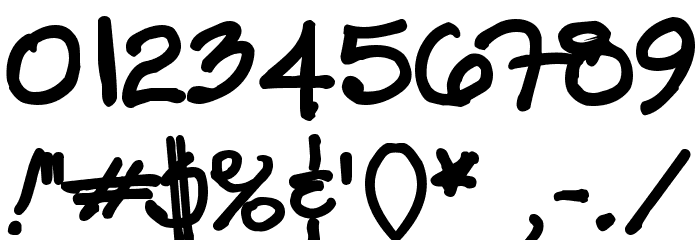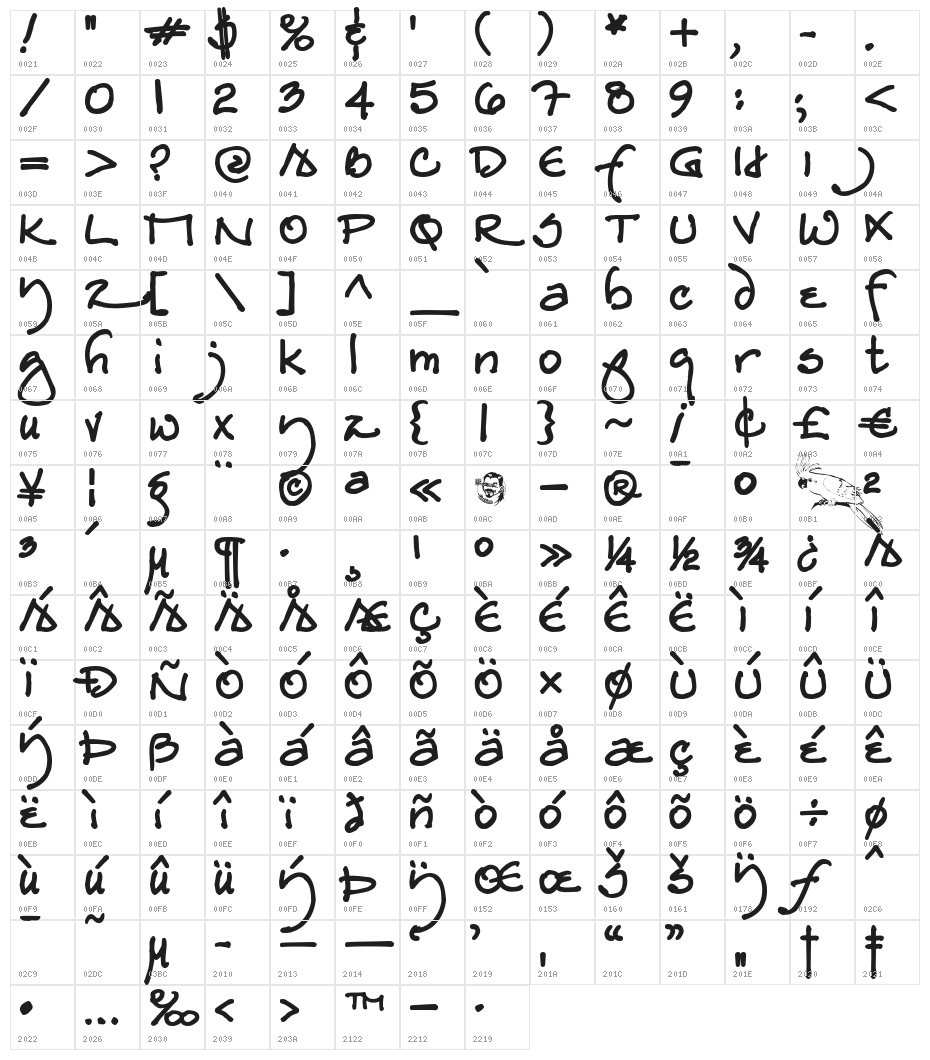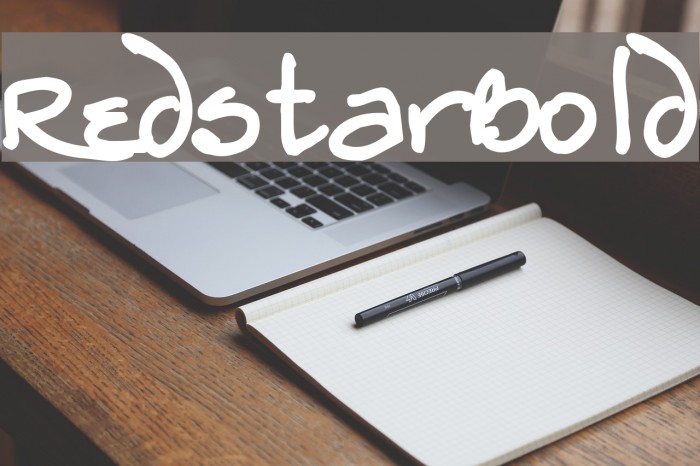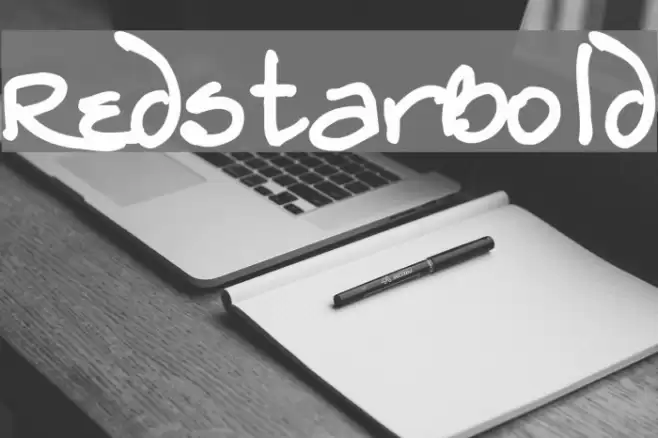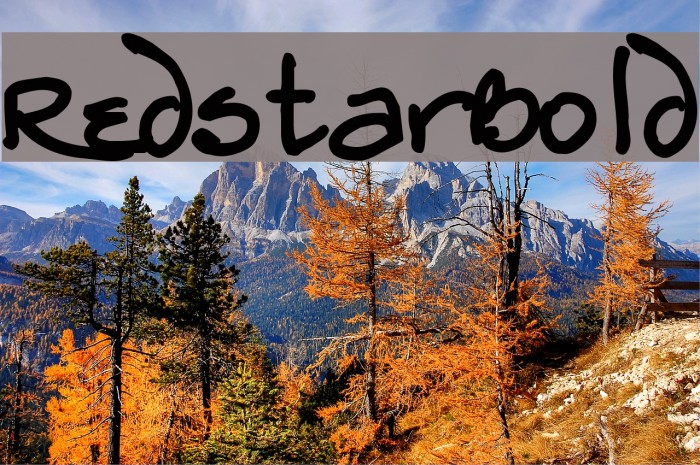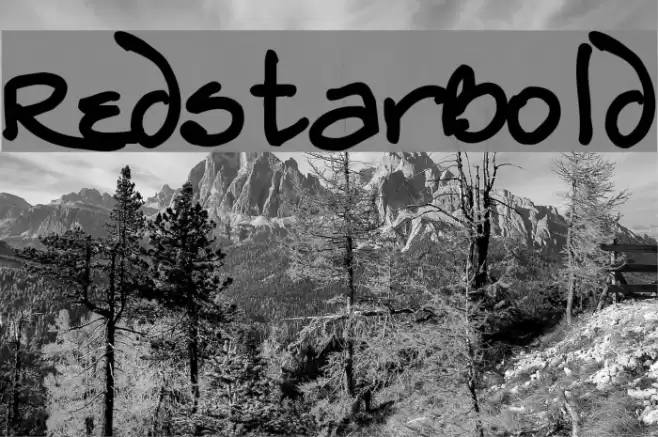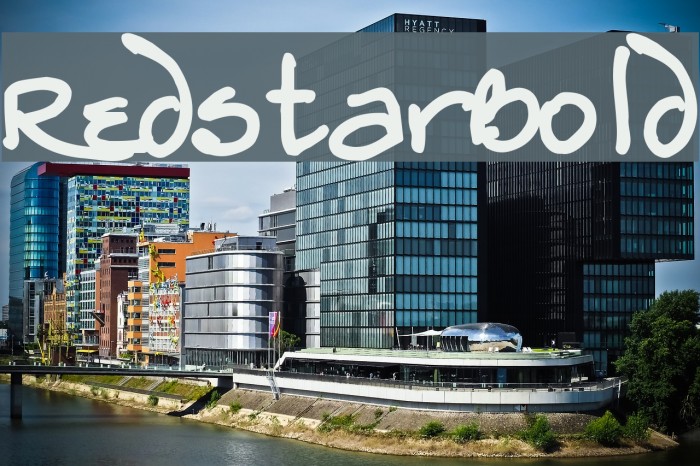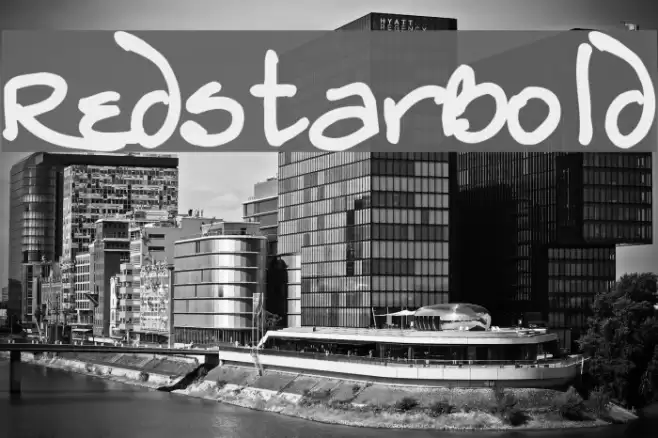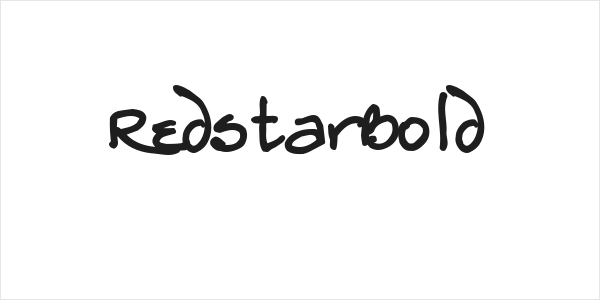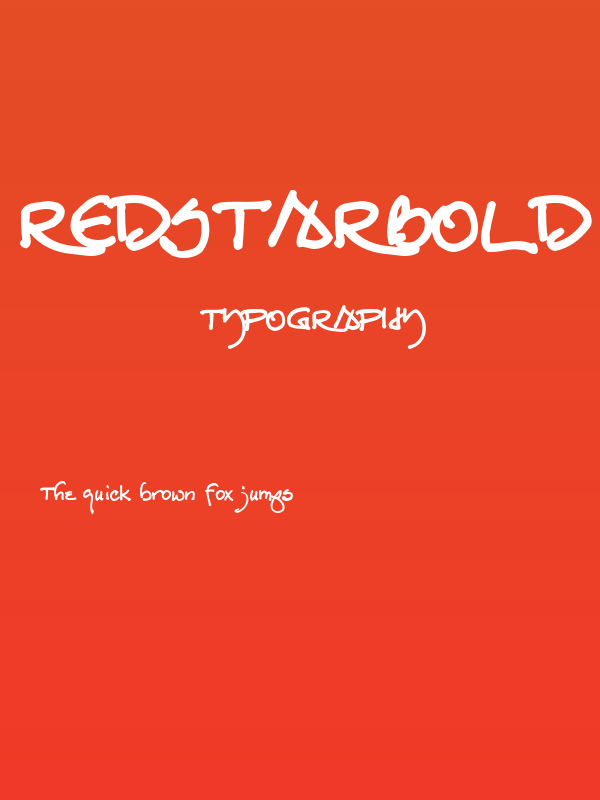
RedstarBold Font
RedstarBold Description
This font features a bold, handwritten style with a playful and energetic character. The letters are crafted with a thick brush-like stroke, giving them a dynamic and lively appearance. The uppercase and lowercase letters maintain a consistent flow, while the numbers and special characters complement the overall aesthetic. The font's informal and artistic nature makes it suitable for creative projects. The strokes are slightly irregular, adding a personal touch and a sense of movement. The overall design is both approachable and distinctive, making it ideal for capturing attention.
| Proposed Projects | Ideal for creative projects such as posters, invitations, branding, and social media graphics. |